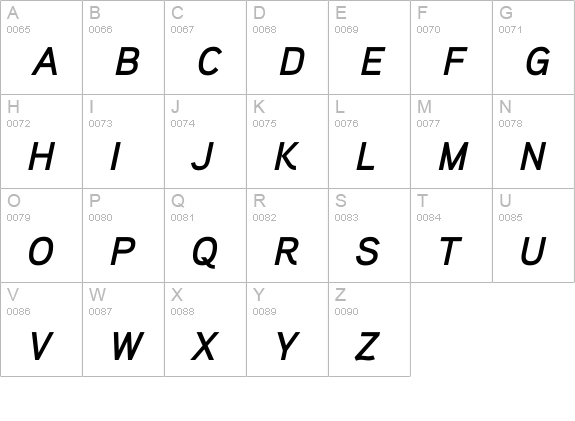
Aaux ProBold Italic SC is a distinctive, italic variant in the Aaux typeface family \xE2\x80\x94 well suited to design and typography projects.
Aaux ProBold Italic SC is a modern and stylish font that exudes confidence and sophistication. Its bold and italic design adds a touch of flair to any project, making it ideal for headlines, titles, and emphasis. The sleek and sleek letterforms of this font are perfect for creating a professional and polished look. Best of all, Aaux ProBold Italic SC is available for free download at FontsMarket.com. Whether you're working on a branding project, designing a website, or creating a social media graphic, this versatile font will elevate your work to the next level. Don't miss out on the opportunity to enhance your designs with the striking Aaux ProBold Italic SC font - download it now for free and make a bold statement with your typography choices.